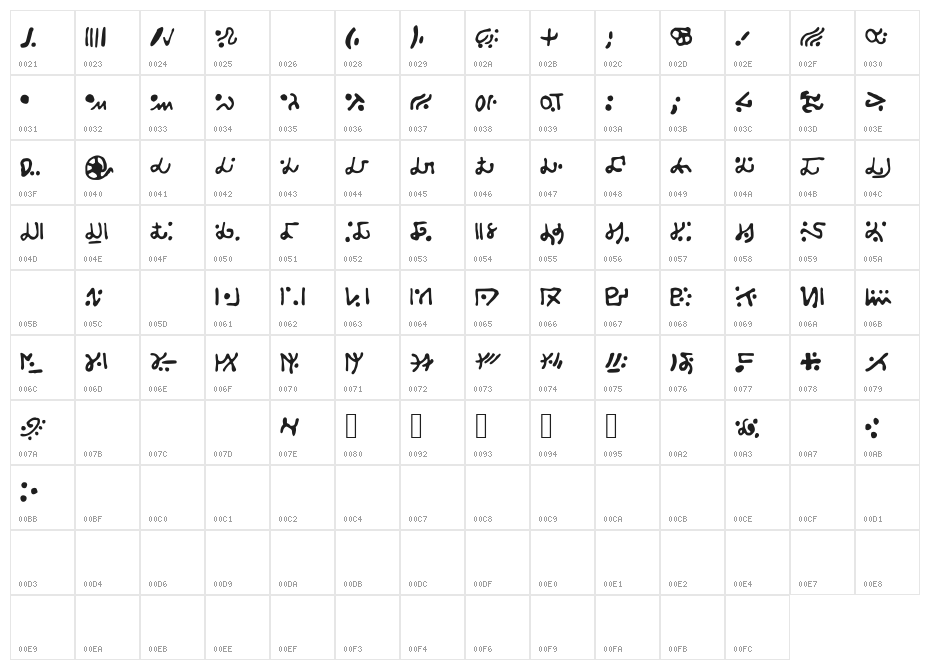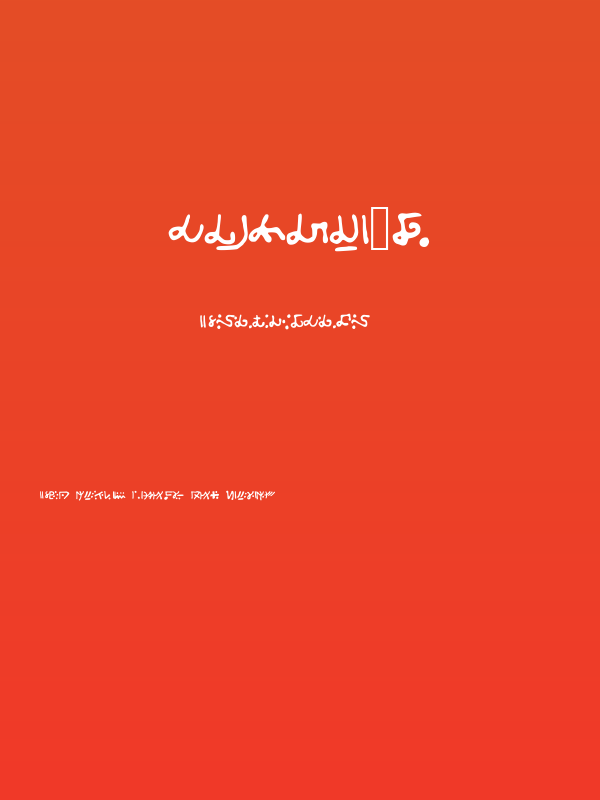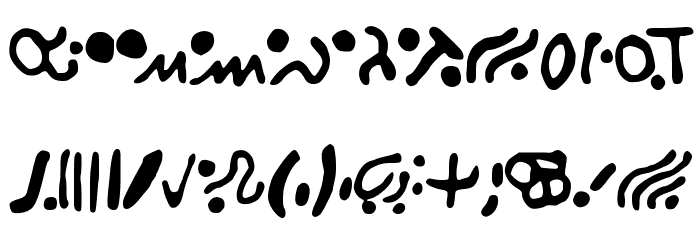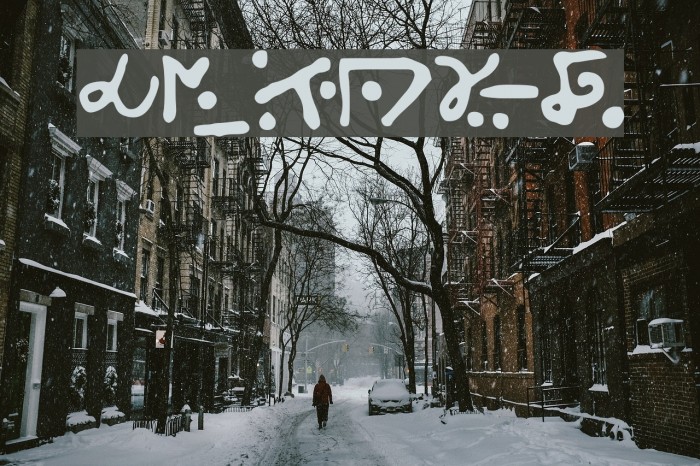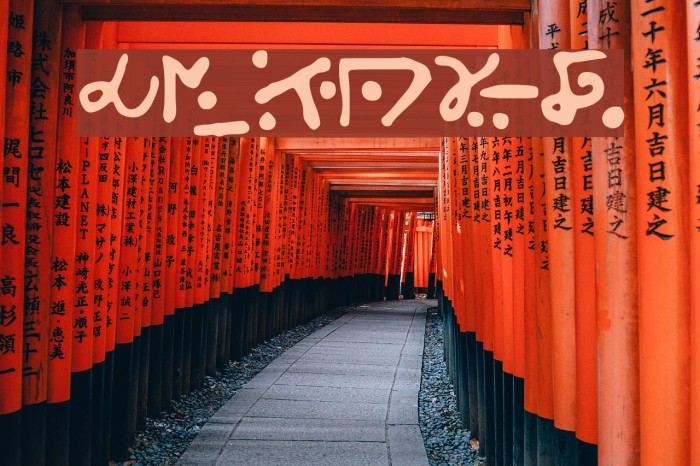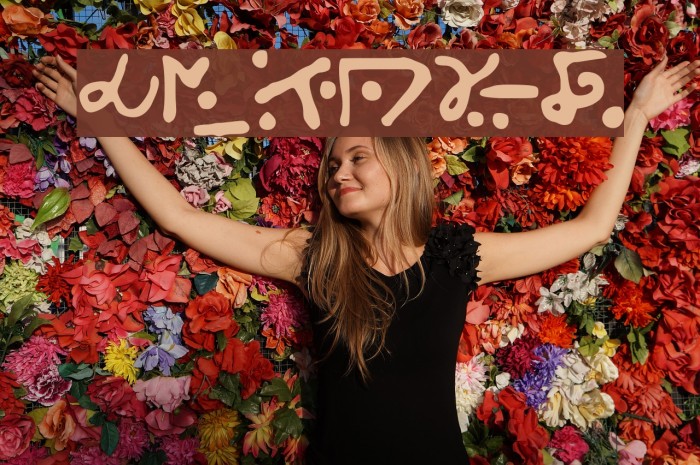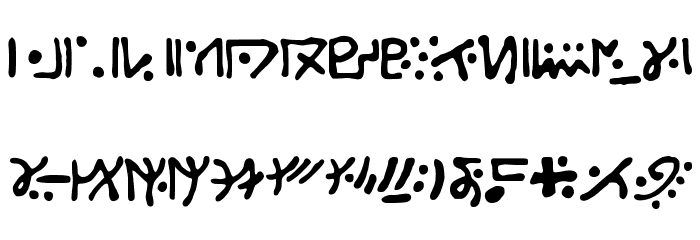
Alien_S Font
Alien_S Description
A highly stylized, decorative font with abstract, alien-like glyphs featuring rounded shapes, dots, and flowing lines, giving it an extraterrestrial or coded appearance.
| Overall Style | Decorative, Futuristic, Alien |
| Use Case | Logos, Headlines, Themed graphics, Entertainment media |
| Proposed Projects | Science fiction posters, video game titles, movie props, escape room puzzles, themed event graphics. |